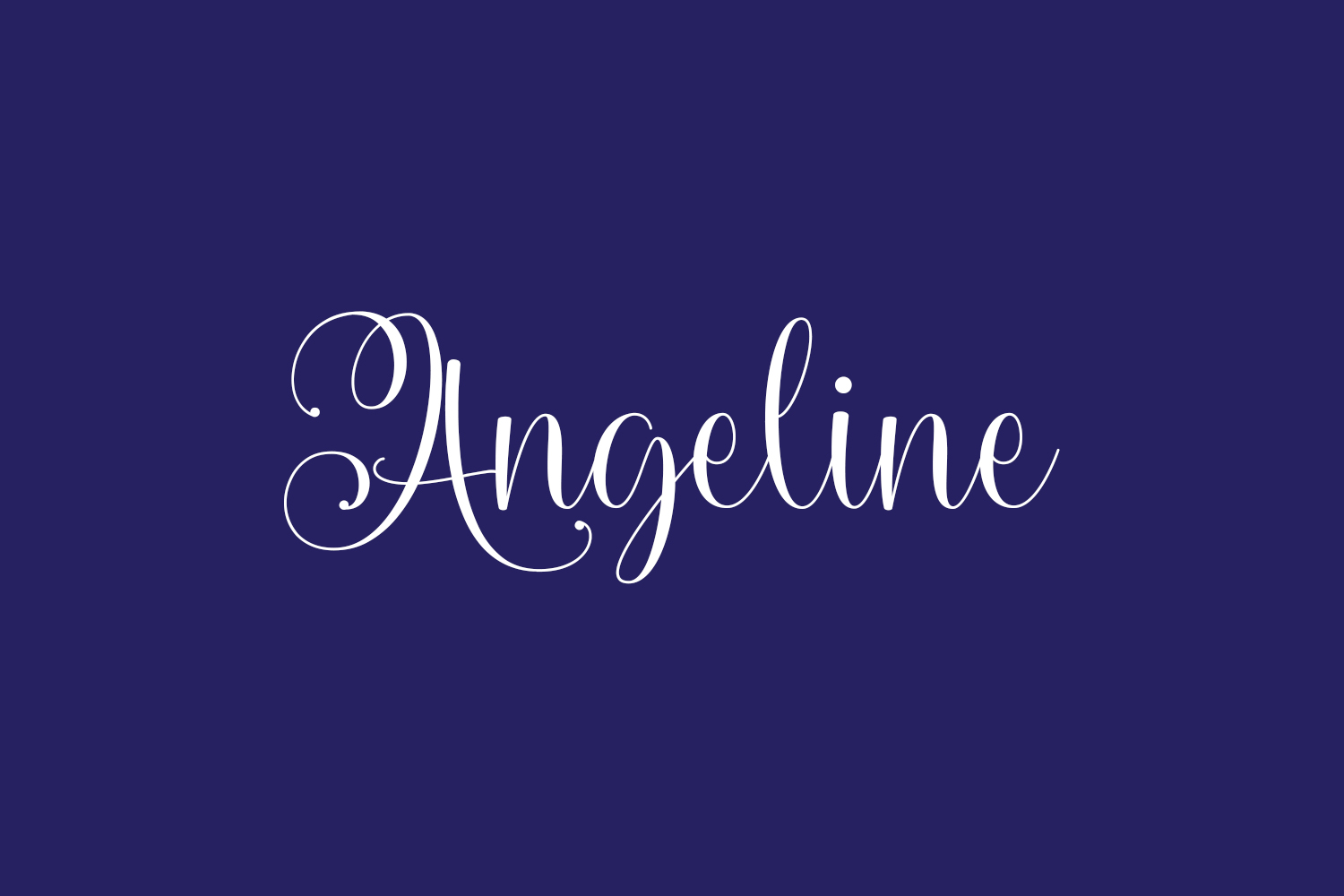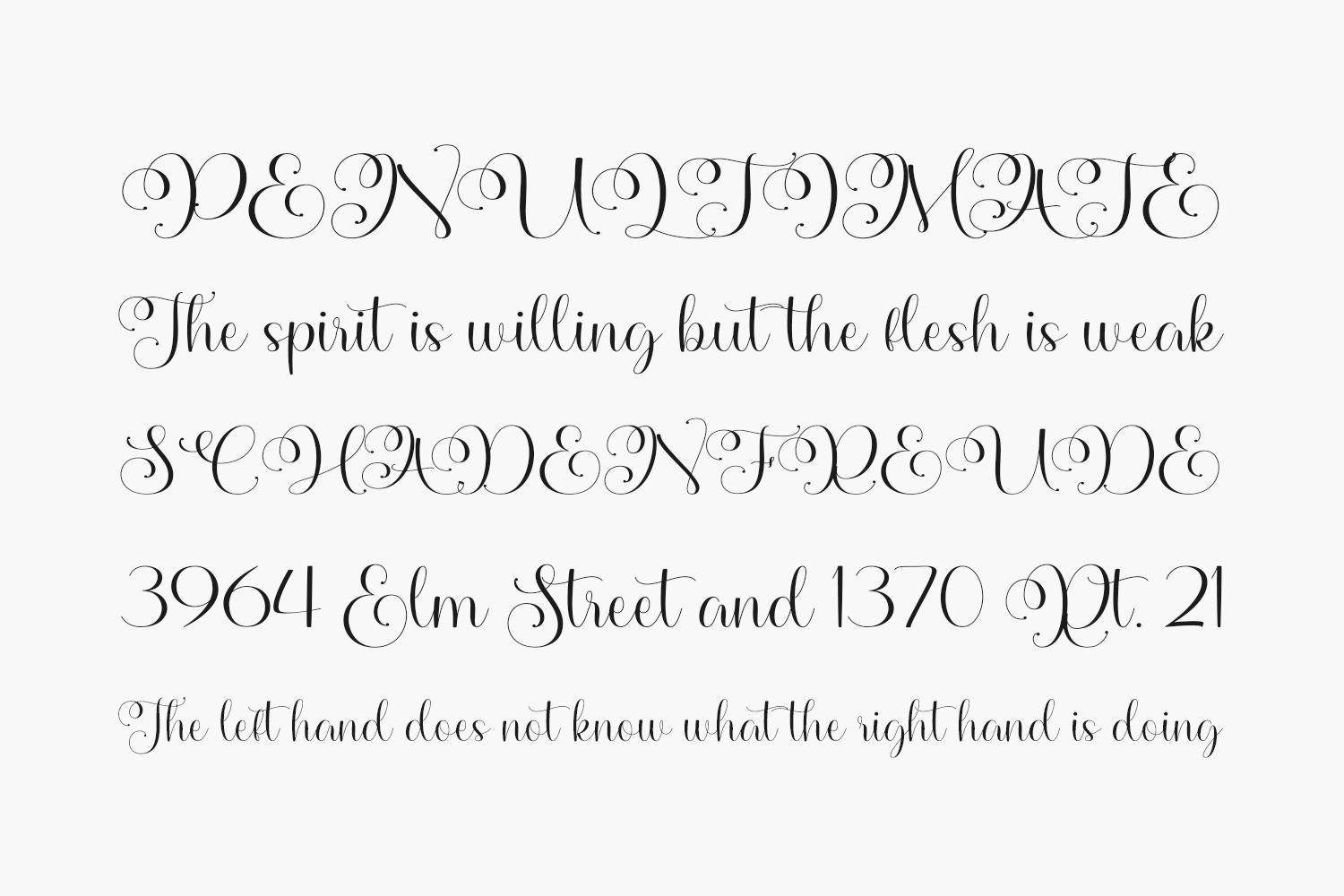
Angeline Free Font is a lovely script font that can make any project stand out. Use it for birthday cards, wedding invitations, logos, apparel, and many other industries. Angeline Free Font is free for personal use only. Please purchase the full version for commercial use.